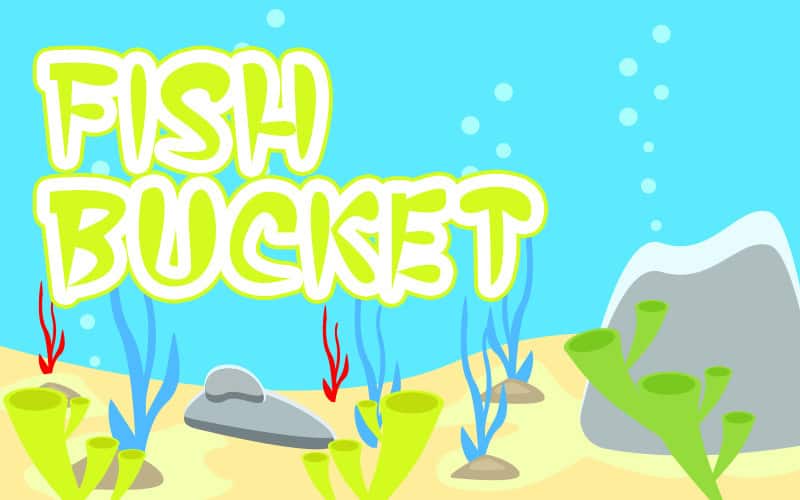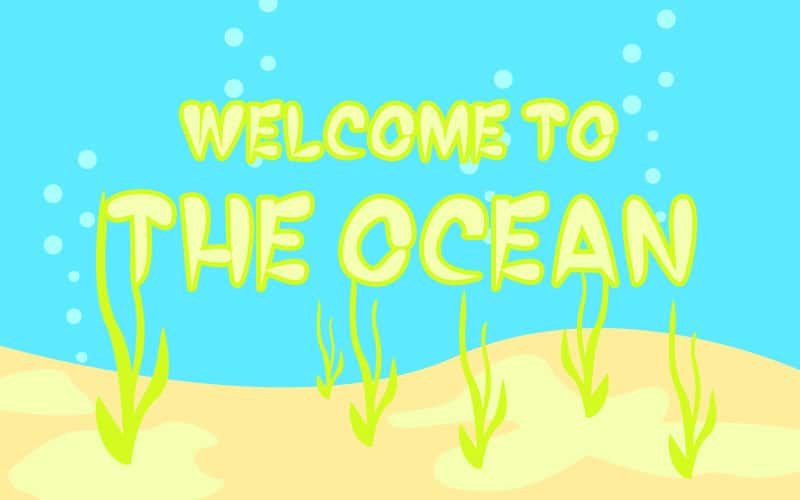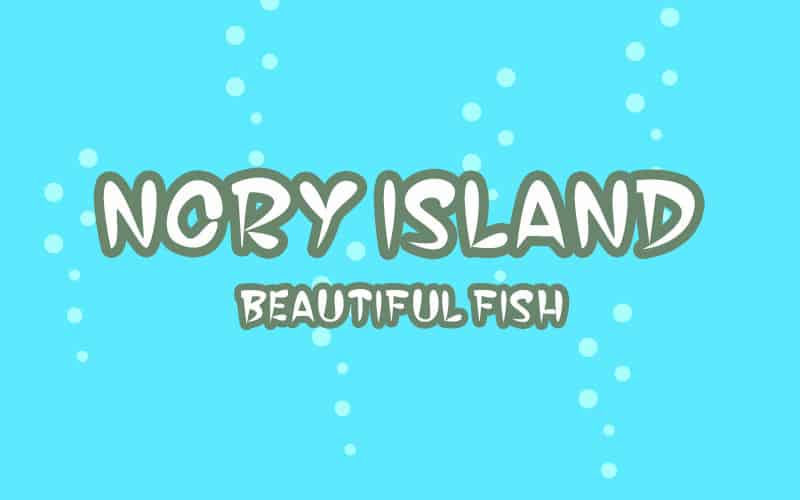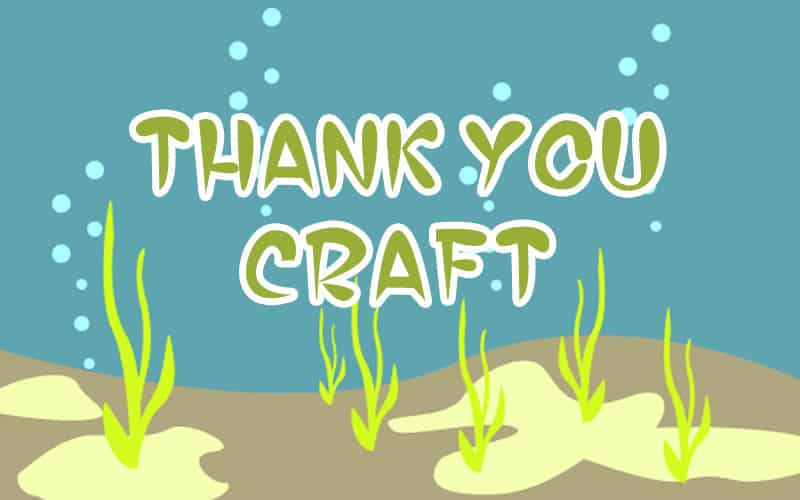
Baby Shark Display Font
Baby Shark Display Font is a great. It maintains its classy calligraphic influences while feeling contemporary and fresh. This versatility will appeal to a wide range of crafty ideas, from letterheads and titles to stationery.